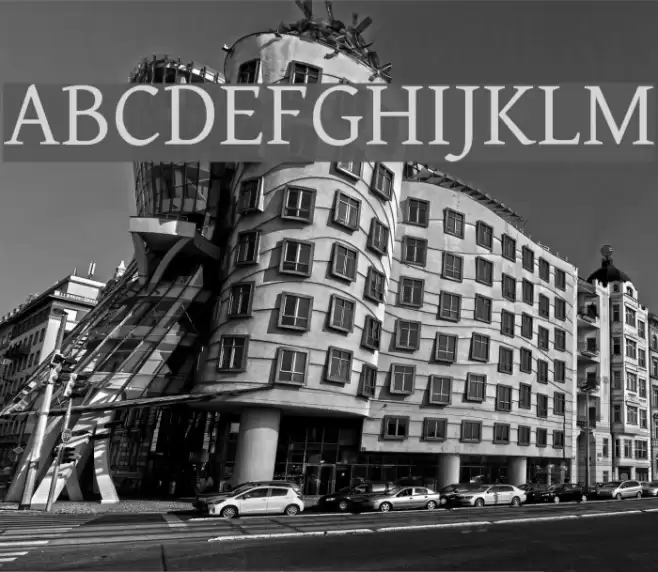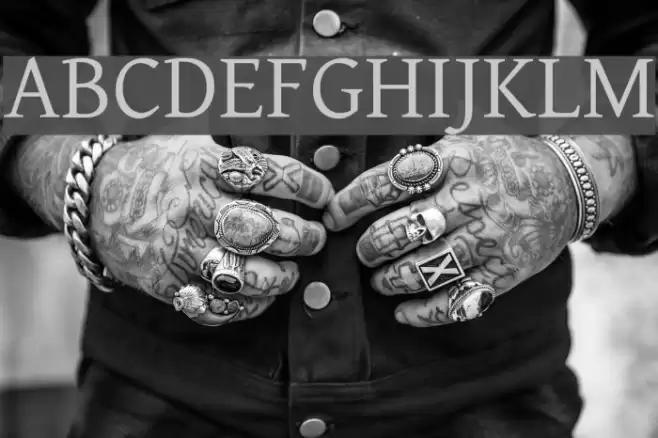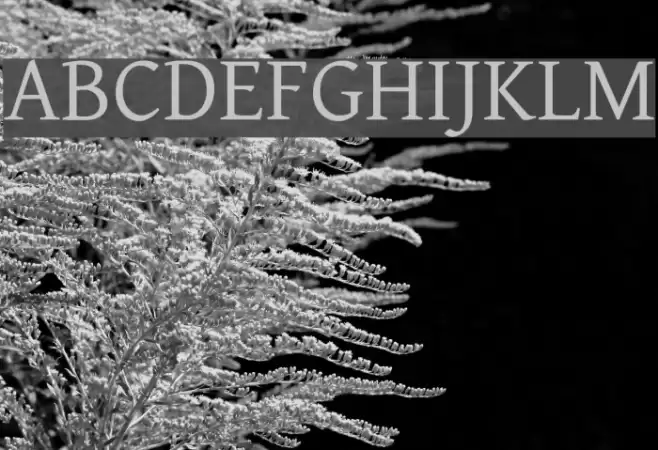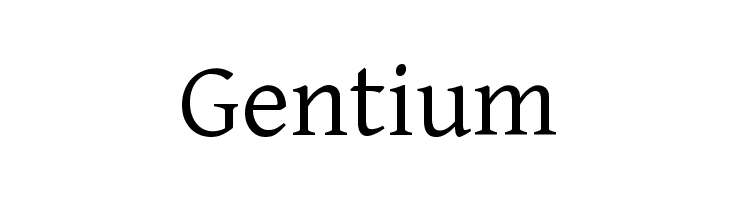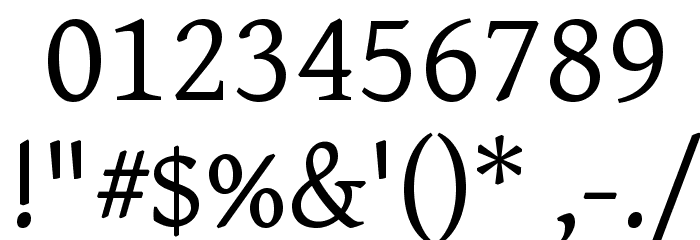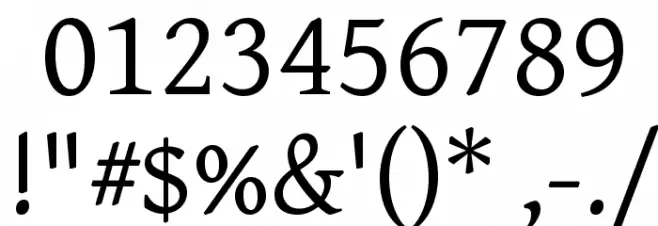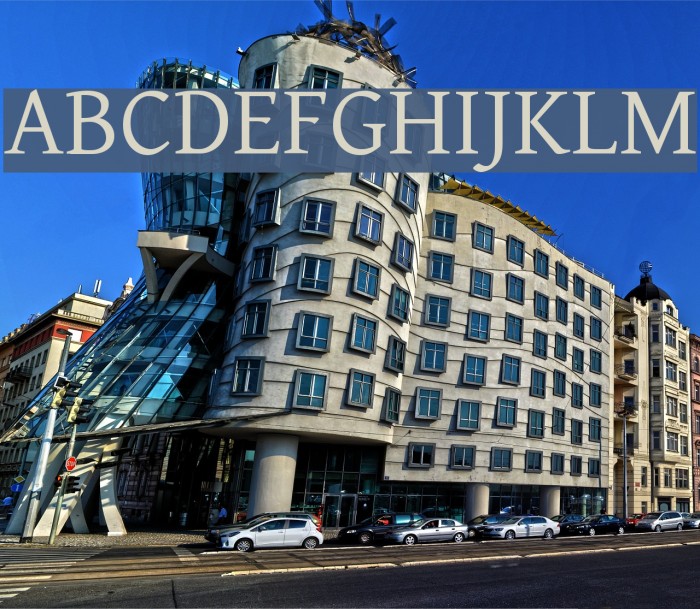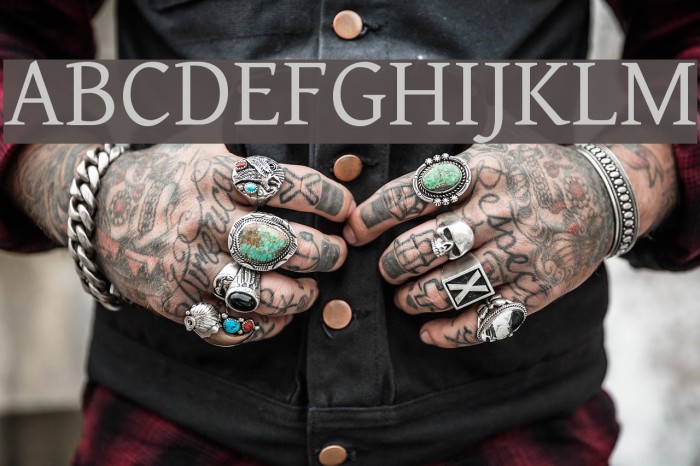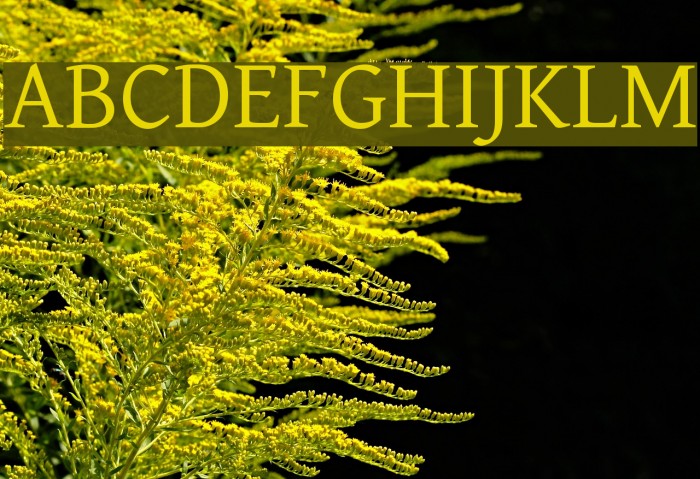
Gentium Font
Gentium Description
This font features a classic serif style with elegant and well-balanced proportions. The characters exhibit a harmonious blend of traditional and modern elements, making it versatile for various design applications. The uppercase letters are stately and well-defined, while the lowercase letters maintain a smooth and readable flow. The numerals are clear and consistent, complementing the overall aesthetic. Special characters are thoughtfully designed, ensuring coherence across the typeface. The font's design is suitable for both digital and print media, offering a timeless appeal.
A classic serif font with elegant and balanced proportions from Serif fonts.
- Proposed Projects: Ideal for book typesetting, academic publications, branding, and editorial design.
- Overall Style: Classic
- Use Case: Body text, Headlines, Editorial design